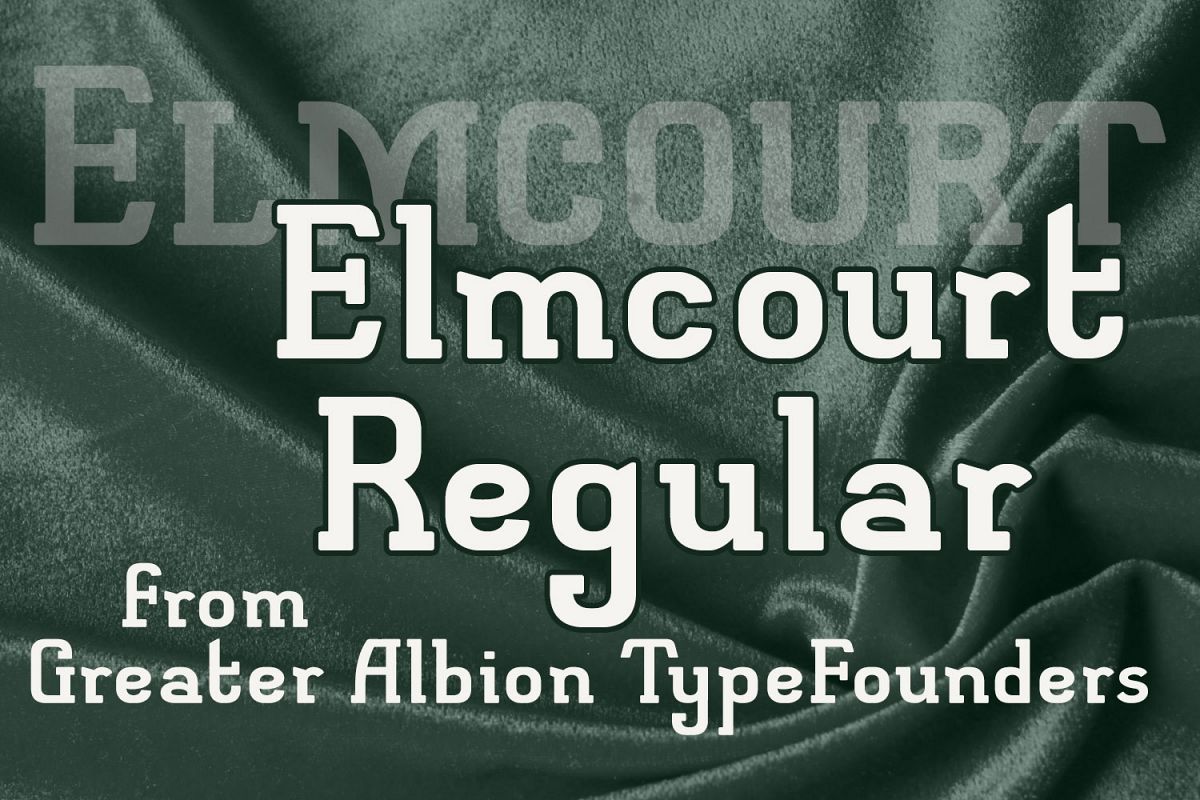
Elm court Regular
Elmcourt-Regular
Elmcourt is a clear and simple display slab-serif typeface family. It's offered in two weights and regular and italic forms. An extensive range of opentype features are included in all typefaces, including small capitals, ligatures, and old-style numerals. It's an ideal family for bold headlines and eye catching poster work. The simplicity of its outlines make it ideal for carved and cutout work.
Greater Albion TypeFounders
Elm court Regular